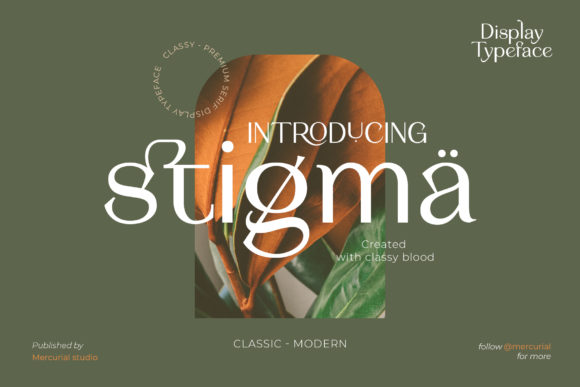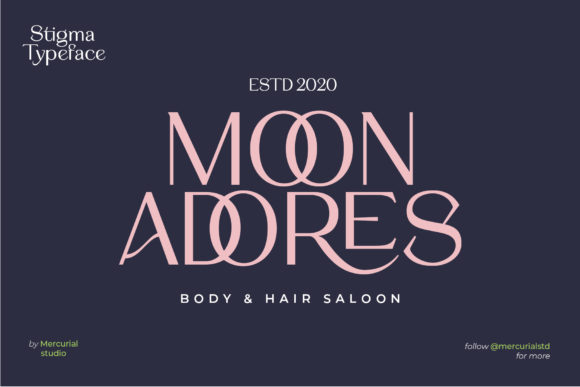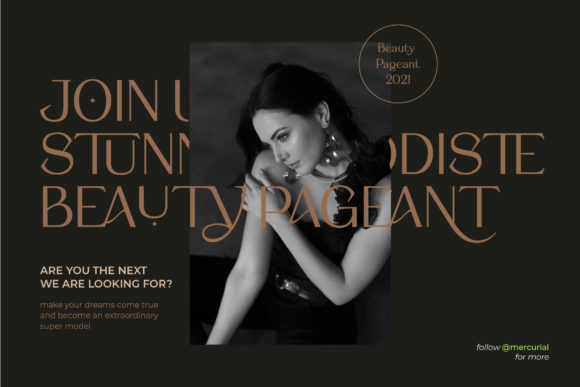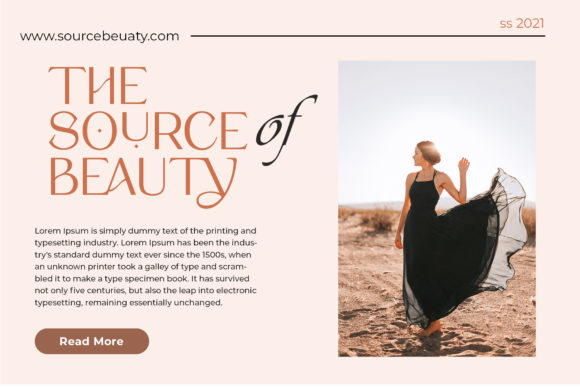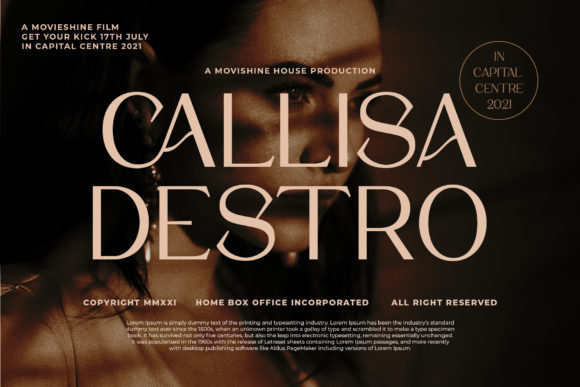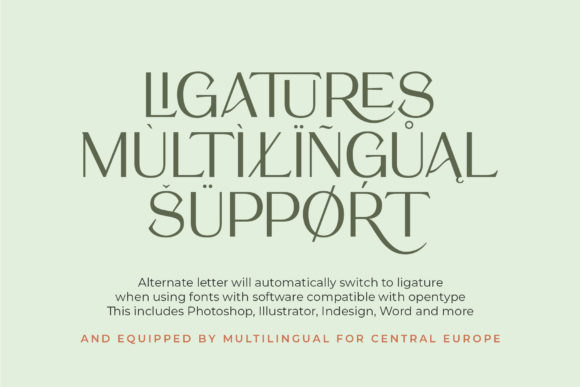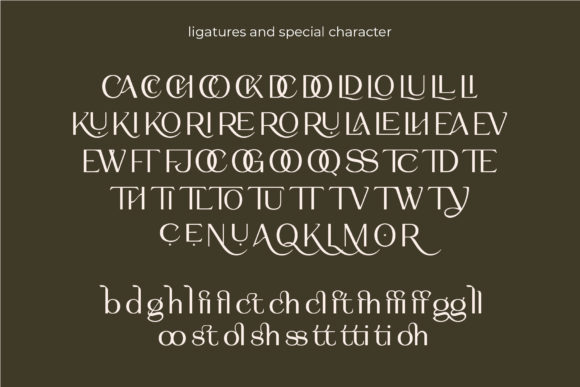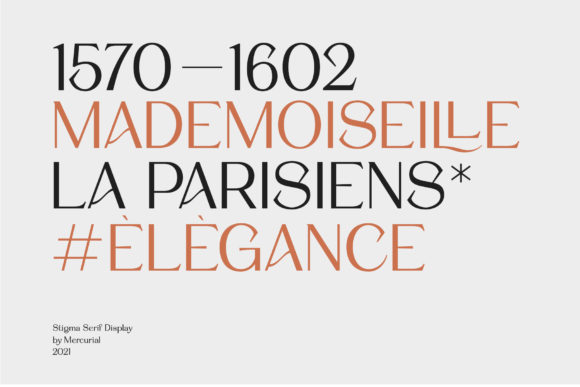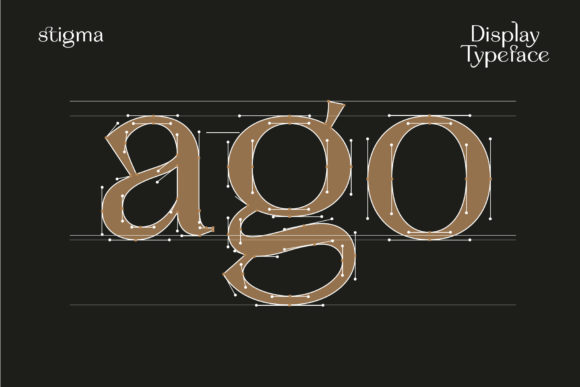
Stigma is a cool, readable and trendy display font. Masterfully designed to become a true favorite, this font has the potential to bring each of your creative ideas to the highest level!